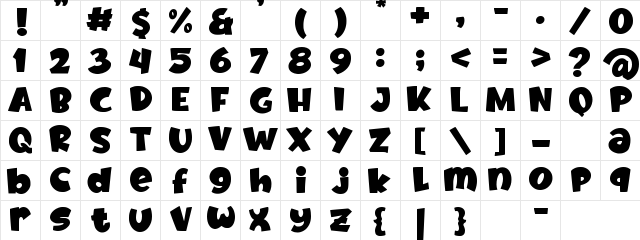
Fruitz -Personal Use Only- Regular
Design Context for Fruitz -Personal Use Only- Typeface
Fruitz -Personal Use Only- is a composed and adaptable typeface that performs quietly and consistently across a wide range of design contexts.
Pro Tip: Use Fruitz -Personal Use Only- in both headline and body roles to test its range before committing to a single application.